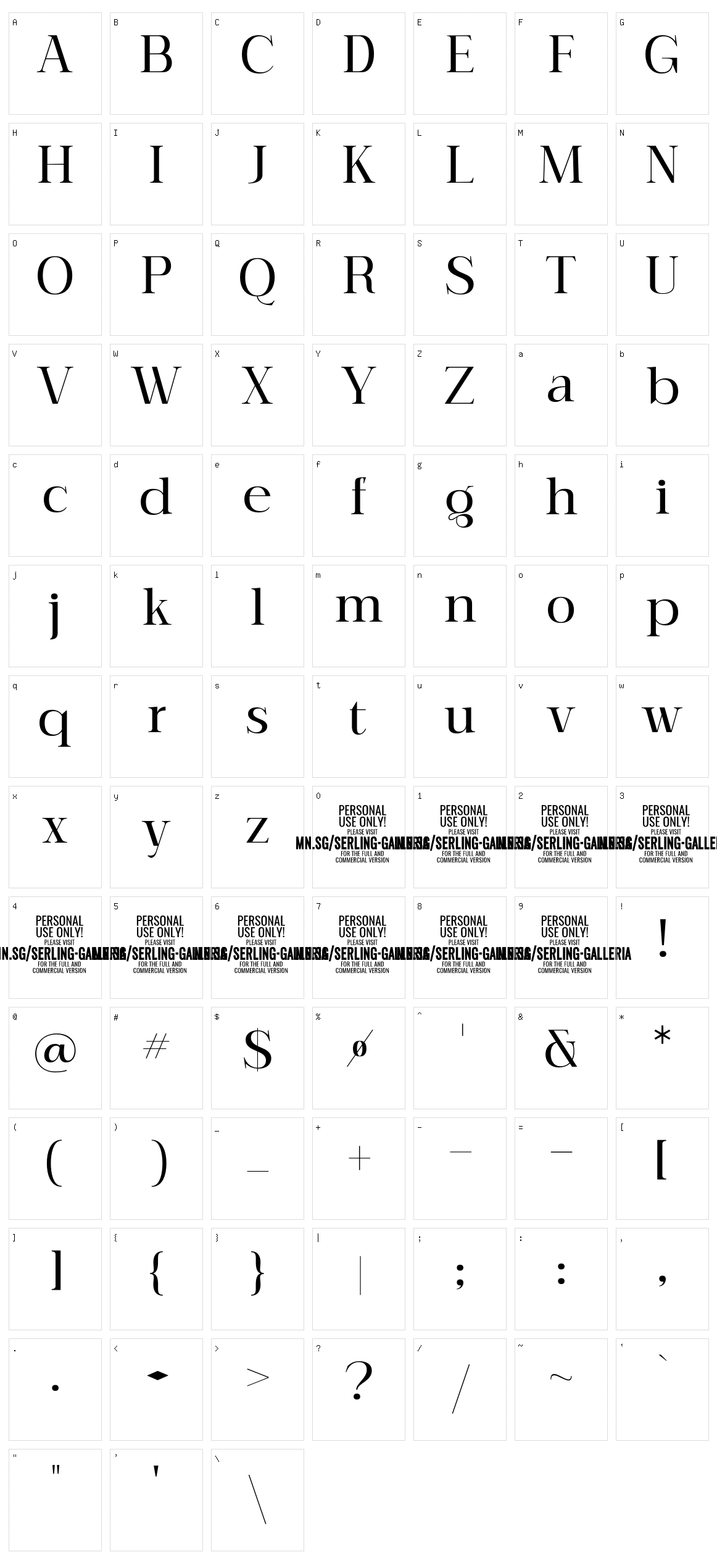
Serling Galleria is a classy, classic serif font that exudes an air of fine art and high-end creativity. With its clear, legible letterforms and modernist inventiveness, Serling Galleria brings a touch of strict creativity to your designs, making them stand out in sophistication.
This versatile font family is perfect for projects that require a refined, elegant aesthetic. With its variable font feature, you have the flexibility to fine-tune the font to your specific needs and create a truly bespoke typographical experience, or use the pre-defined font styles:
Thin, Thin Italic, Extra Light, Extra Light Italic, Light, Light Italic, Regular, Regular Italic, Medium, Medium Italic, SemiBold, SemiBold Italic, Bold, Bold Italic, Extra Bold, Extra Bold Italic, Black, Black Italic
The diverse styles in the Serling Galleria font family provide unmatched versatility, allowing you to adapt your typography to various design contexts and moods seamlessly. With this array of weights and styles at your fingertips, you can effortlessly create a visual hierarchy, emphasize key elements, and establish a cohesive, engaging design language across your creative projects.
Also includes a variable font!
This gives you not only the predefined styles, but instead more than a thousand ways to customize the type to the exact look your project requires.
Built with advanced OpenType functionality, Serling Galleria ensures top-notch quality and provides you with full control and customizability. It includes stylistic and contextual alternates, ligatures, and other features to make your designs truly unique and tailored to your needs.
Serling Galleria offers extensive lingual support, covering all Latin-based languages, from Northern Europe to South Africa, from America to South-East Asia. It contains all the characters and symbols you'll ever need, including all punctuation and numbers.